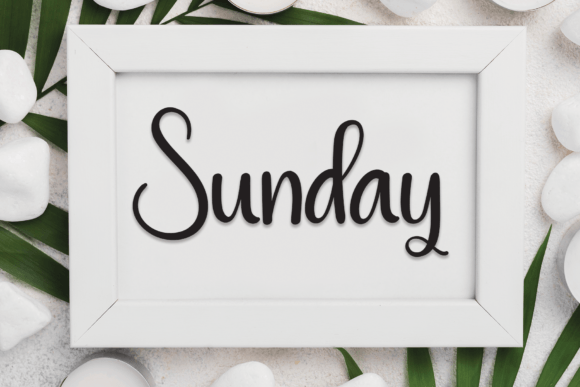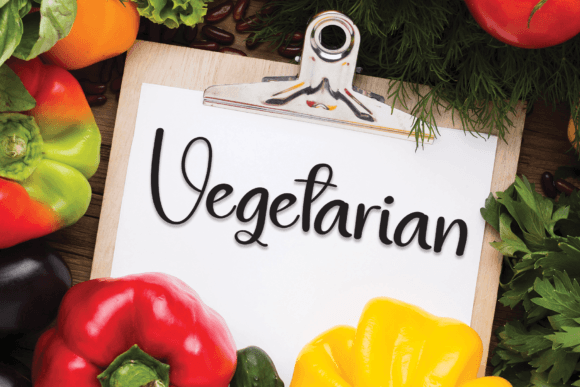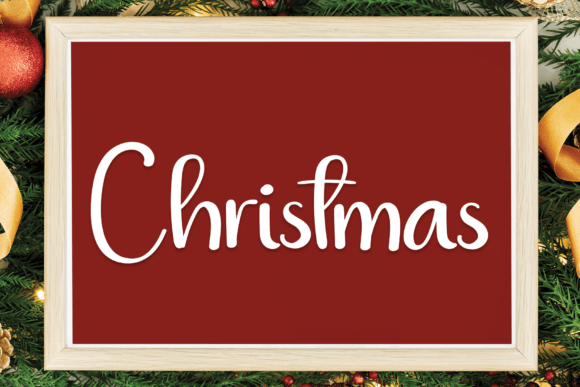
Introduction to Pastel Cake Font
Pastel Cake is a simple and friendly handwritten font.
Whether you’re using it for crafts, digital design, presentations, or creating greeting cards, this font has the potential to become your go-to font, whatever the occasion .
Key Features of Pastel Cake Font
Why Choose Pastel Cake Font?
Pastel Cake Font offers exceptional quality and versatility, making it a valuable addition to your design toolkit. Whether you’re creating for personal projects or commercial use, Pastel Cake Font delivers professional results.